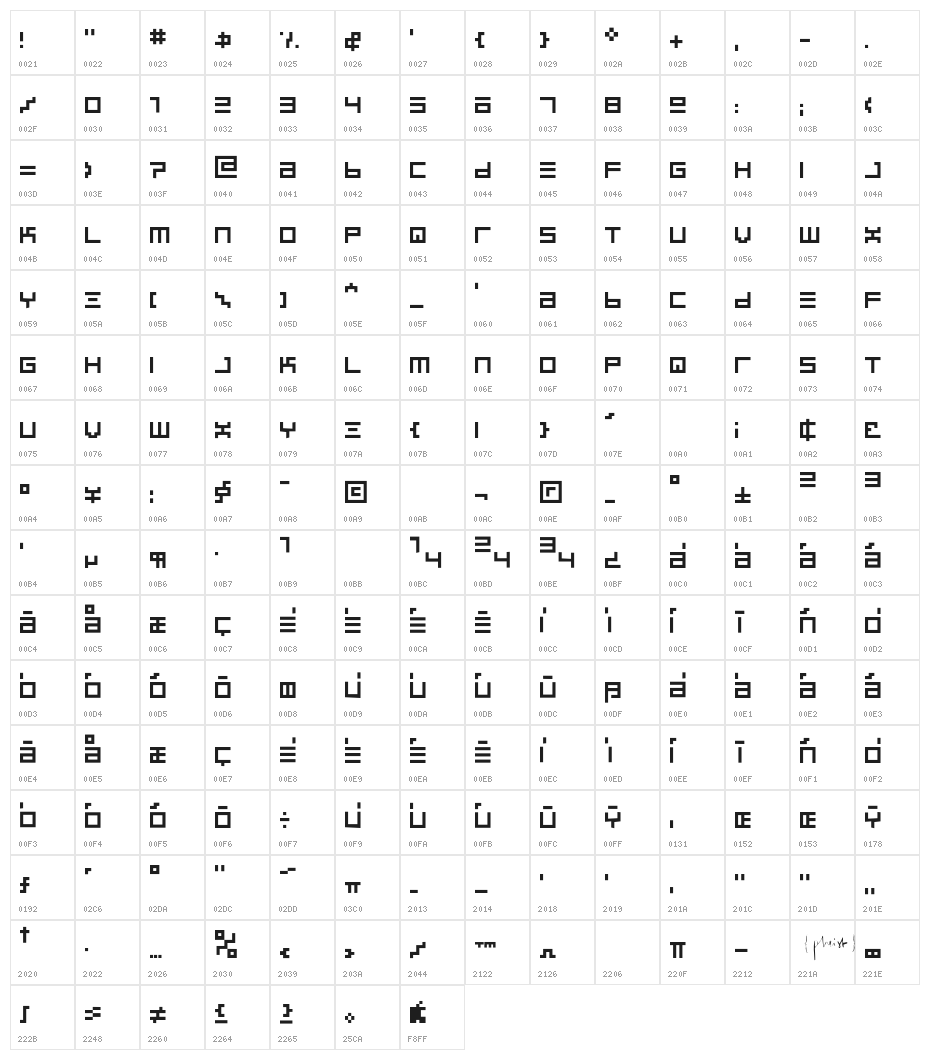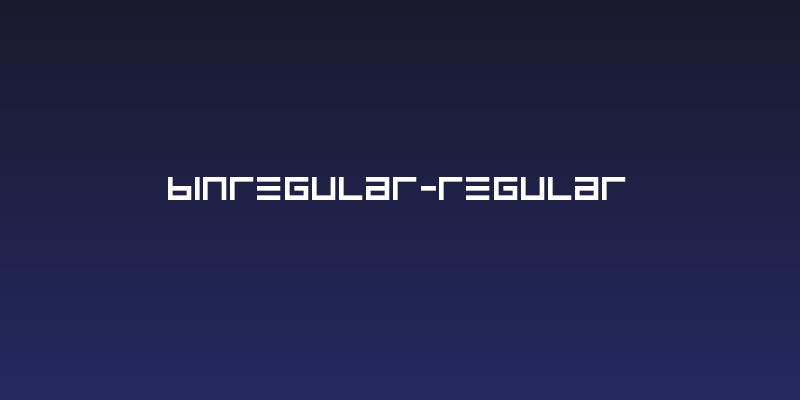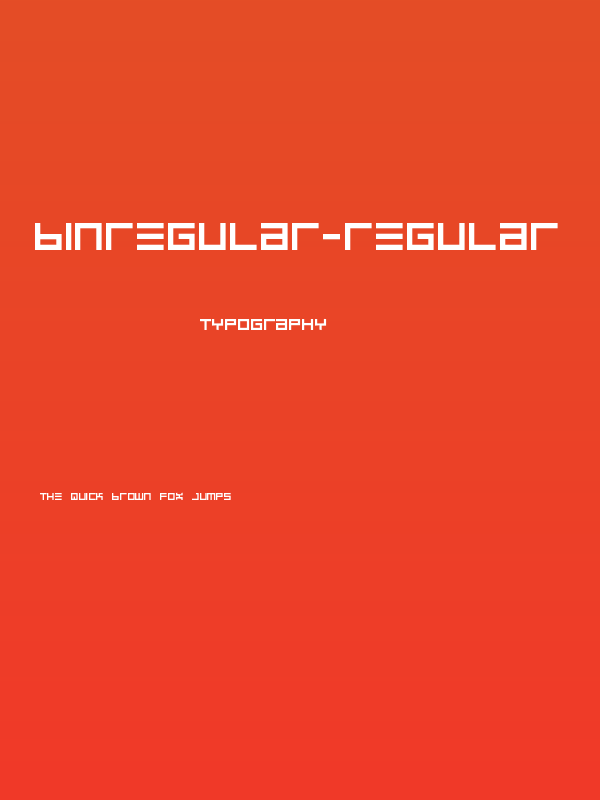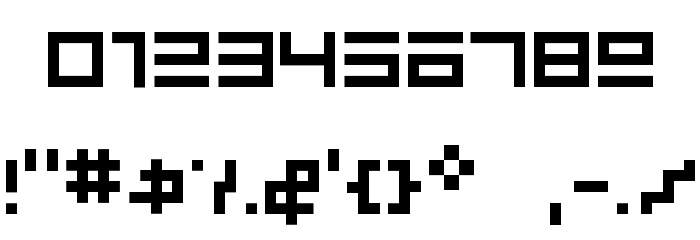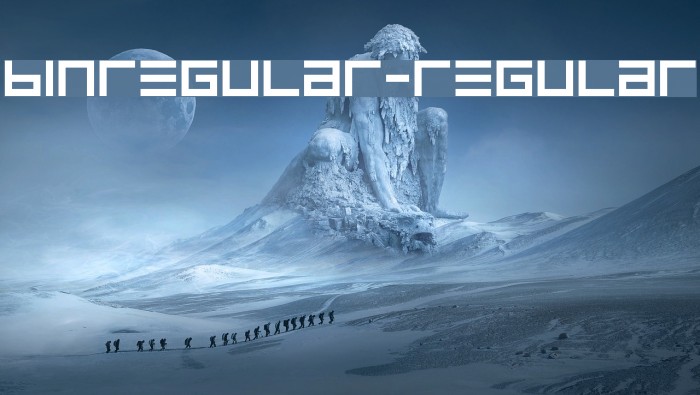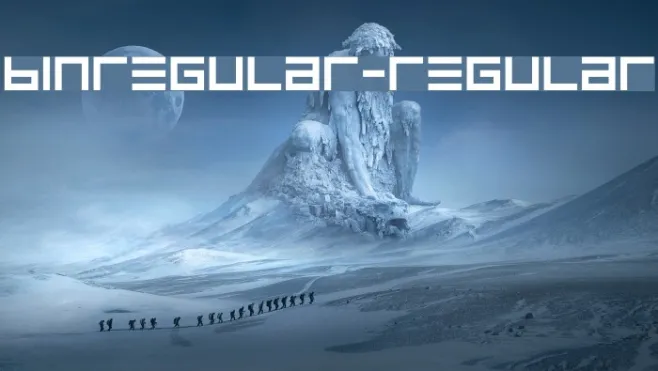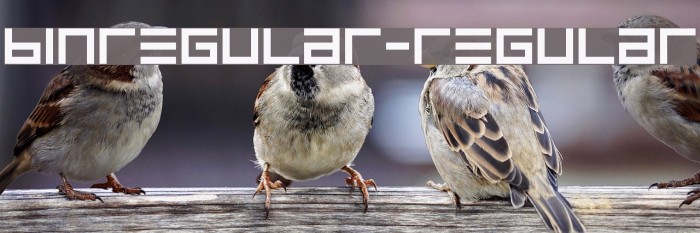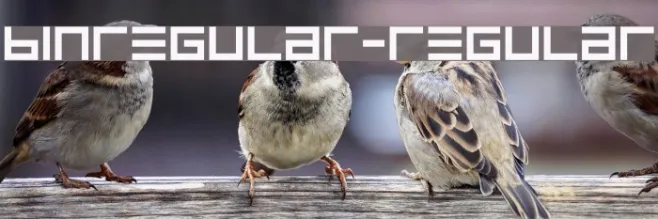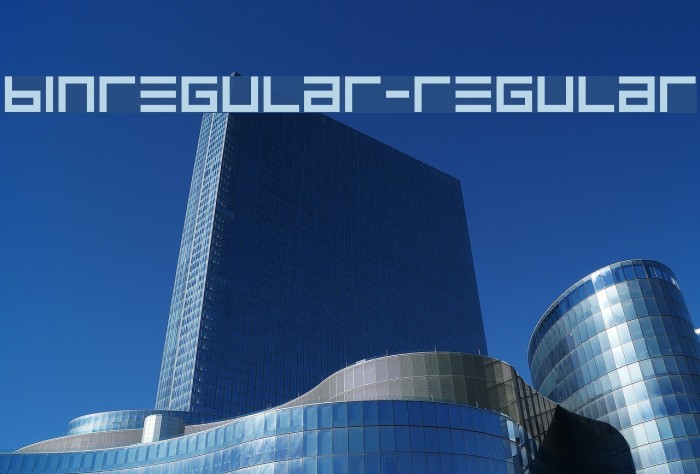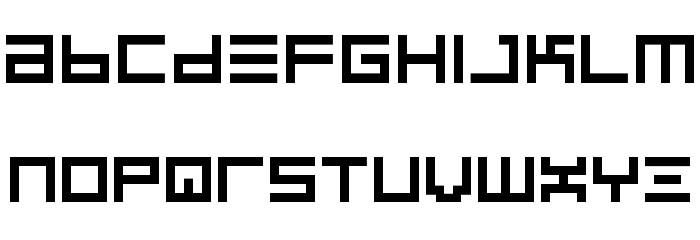
BINRegular-Regular Font
BINRegular-Regular Description
This font features a bold, geometric design with a distinctly digital or pixelated aesthetic. Each character is constructed with sharp, angular lines and uniform stroke widths, giving it a blocky, futuristic appearance. The uppercase and lowercase letters maintain a consistent height, contributing to a monospaced feel, although the font is not strictly monospaced. The numerals and special characters follow the same design principles, ensuring visual harmony across all glyphs. This style is reminiscent of early computer graphics and video game typography, making it ideal for projects that require a retro or tech-inspired look.
| Overall Style | Futuristic, Digital, Retro |
| Proposed Projects | Ideal for tech-themed designs, retro video game graphics, digital art, and futuristic branding. |